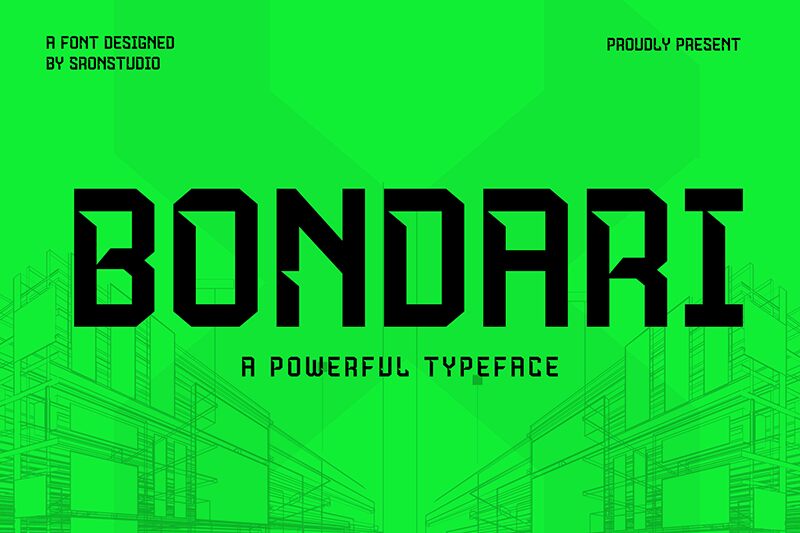
Bondari
Bondari font is a free techno display font designed by Sronstudio. Its geometric futuristic design of angular blocky characters gives away an industrial look that reminds of perfectly connected cogs inside a working machine. The individual letters do not have much in common, which is what makes them unique and excellent if you intend for them to stand out.